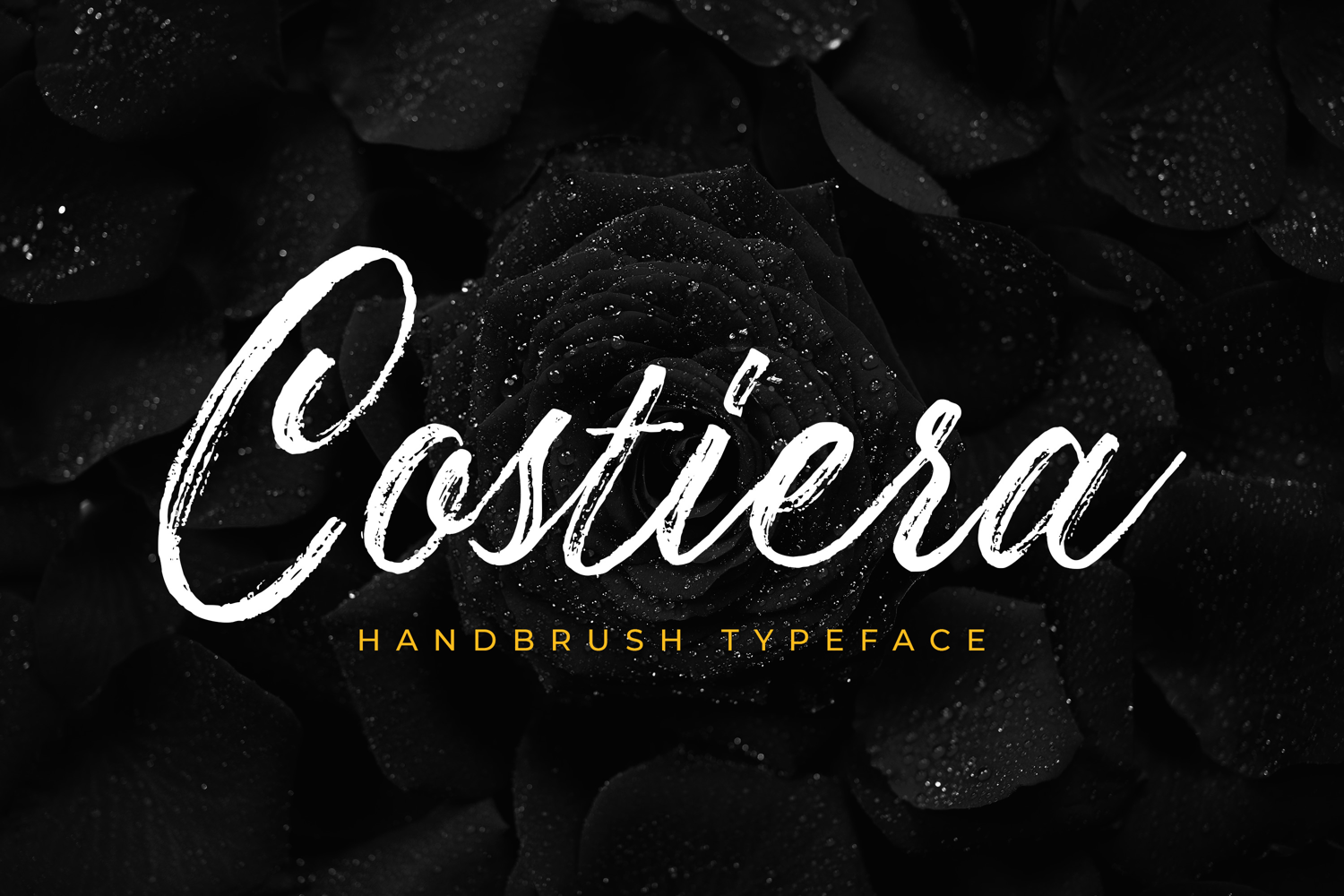
Costiera - Elegant Handbrush
Introducing Costiera – Elegant Handbrush is a brush script that is written casually and quickly. Letters are made with brushes on paper. Then scanned and carefully drawn into vector format. That is why Costeria has charming, authentic and relaxed characteristic,has 2 styles of regular and slant variations with a more natural look to your text with a more natural look to your text. You can activate Ligature OpenType panel to make these two styles. It also has many alternatives and underlines that make your text and design more interesting. Costiera is perfect for homeware designs,branding projects, Logo design,Quotes roduct packaging